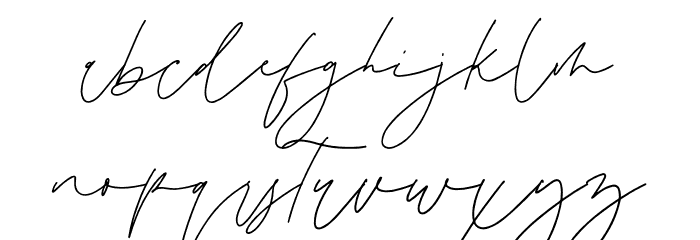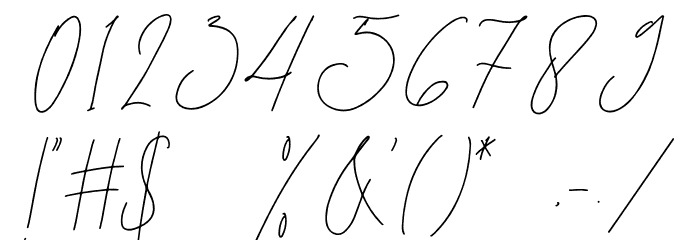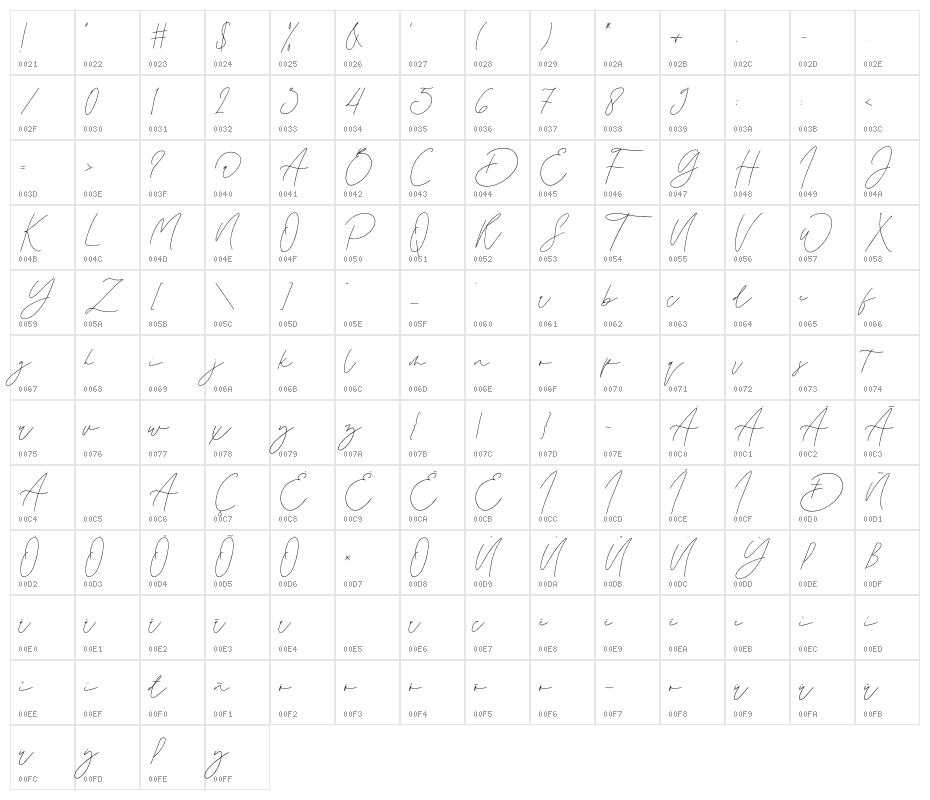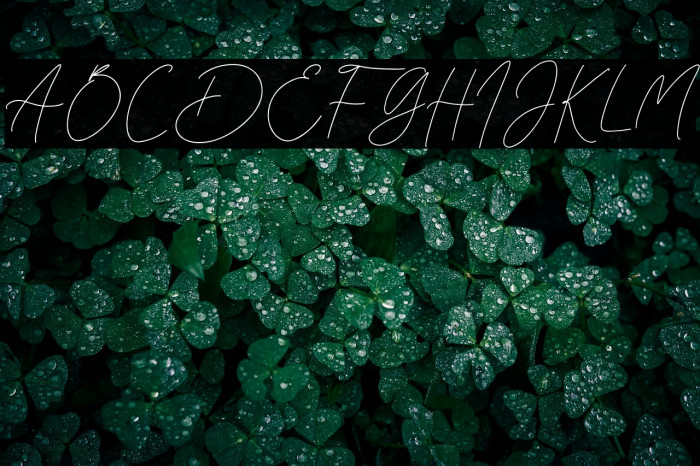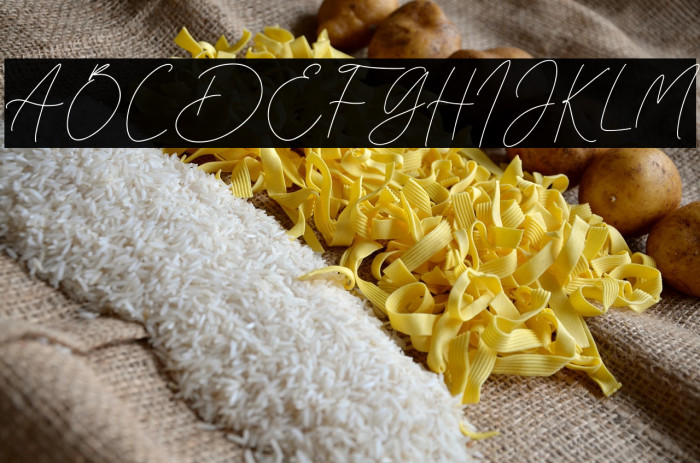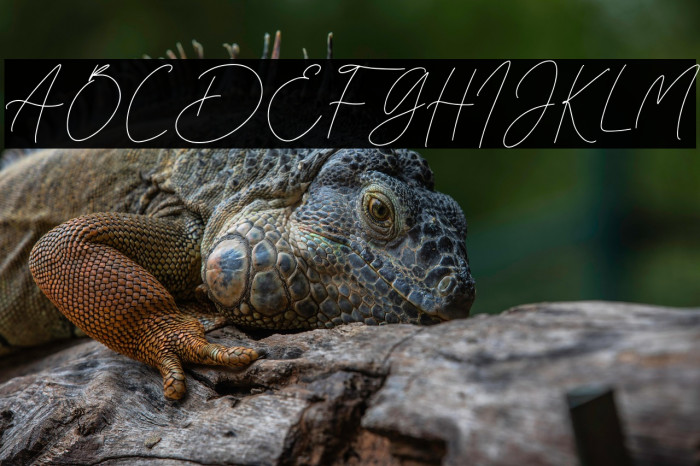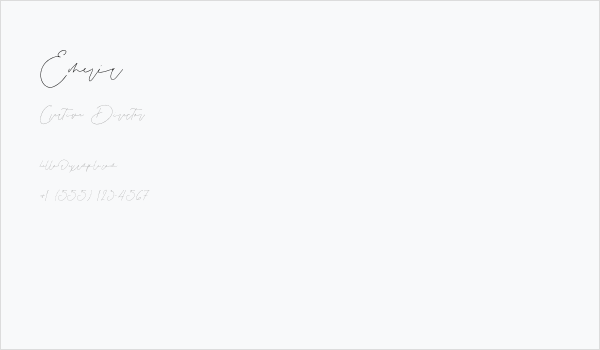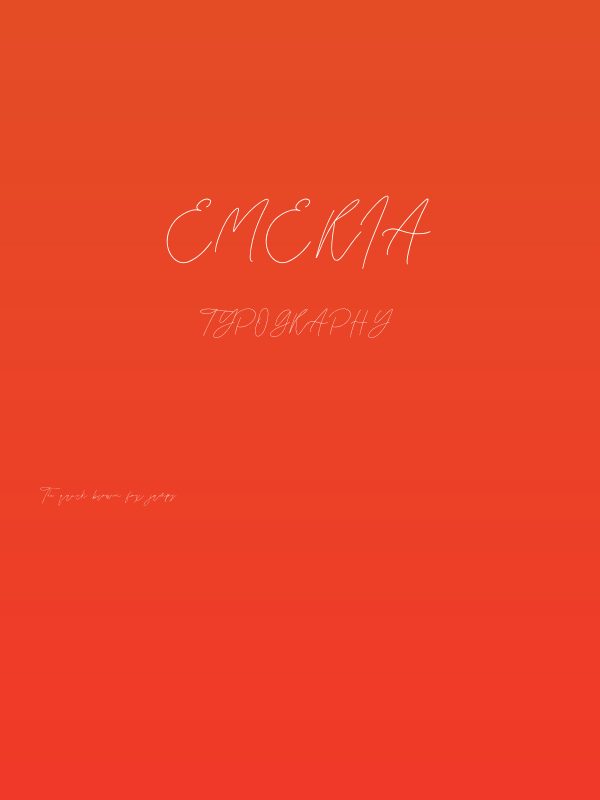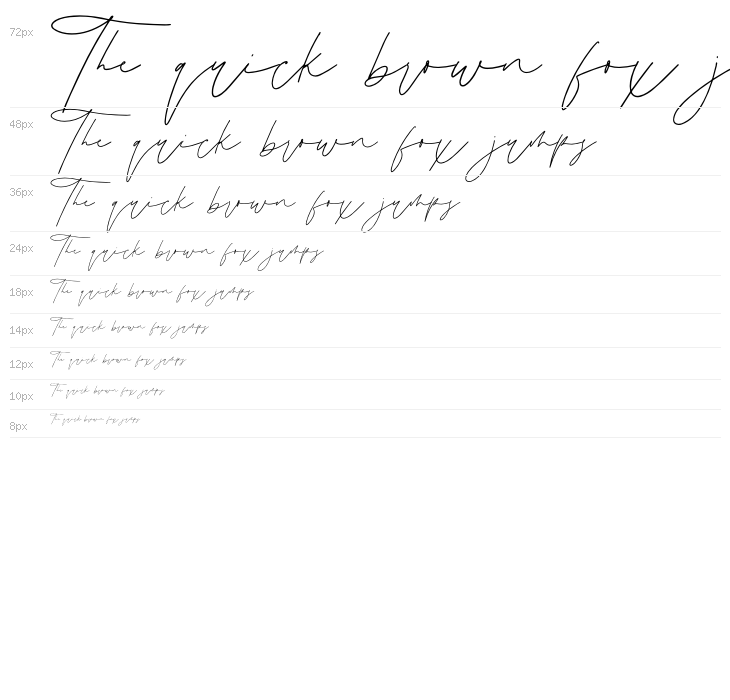
Emeria Font
This font exhibits a fluid and elegant cursive style, characterized by its smooth, flowing lines and graceful curves. Each letter seamlessly connects to the next, creating a harmonious and continuous script. The uppercase letters are slightly more ornate, with elongated strokes and subtle flourishes, while the lowercase letters maintain a consistent rhythm and balance. The numerals and special characters are designed to complement the overall aesthetic, with a similar emphasis on fluidity and elegance. This font is ideal for projects that require a touch of sophistication and a personal, handwritten feel.
A fluid and elegant cursive font with smooth, flowing lines.
- Font: Emeria
- Proposed Projects: Ideal for wedding invitations, personal letters, branding materials, and elegant stationery.
- Category: Script
- Overall Style: Elegant
- Use Case: Logos, Invitations, Personal Correspondence